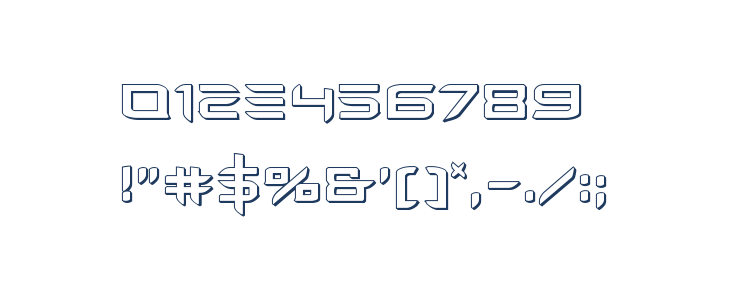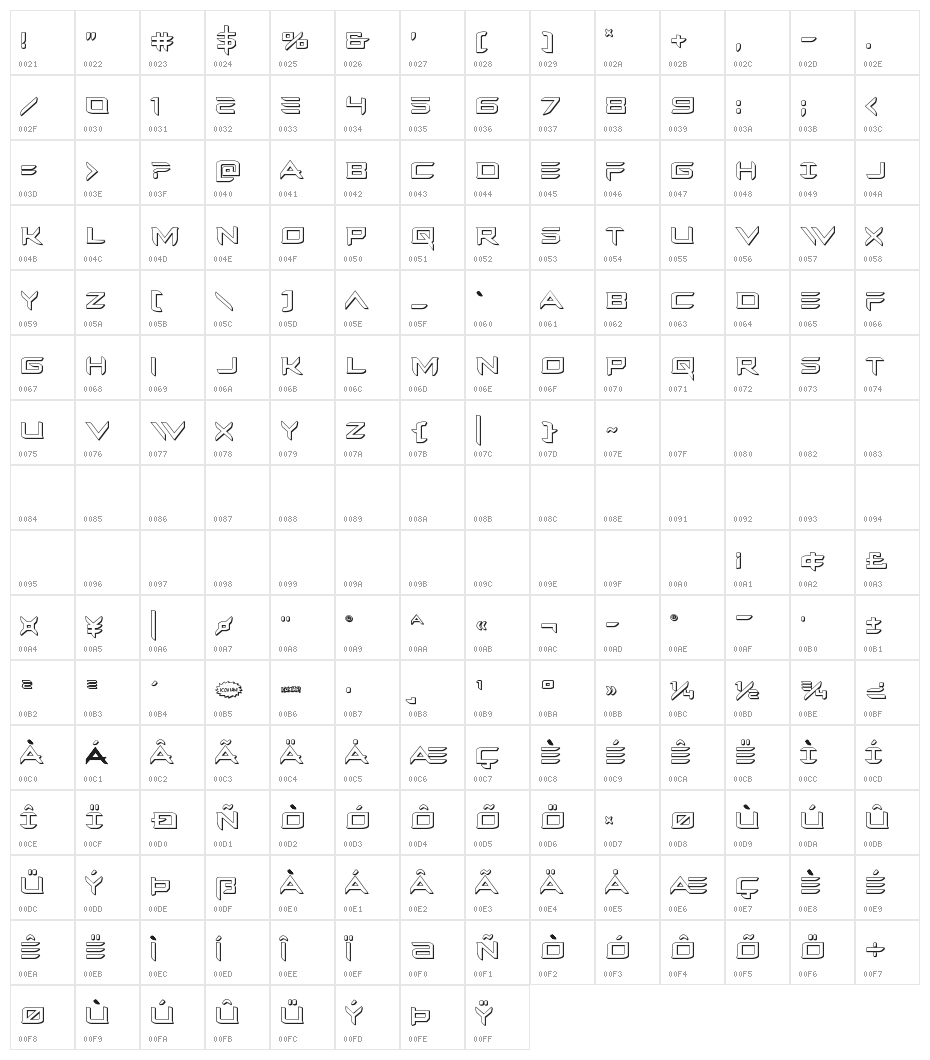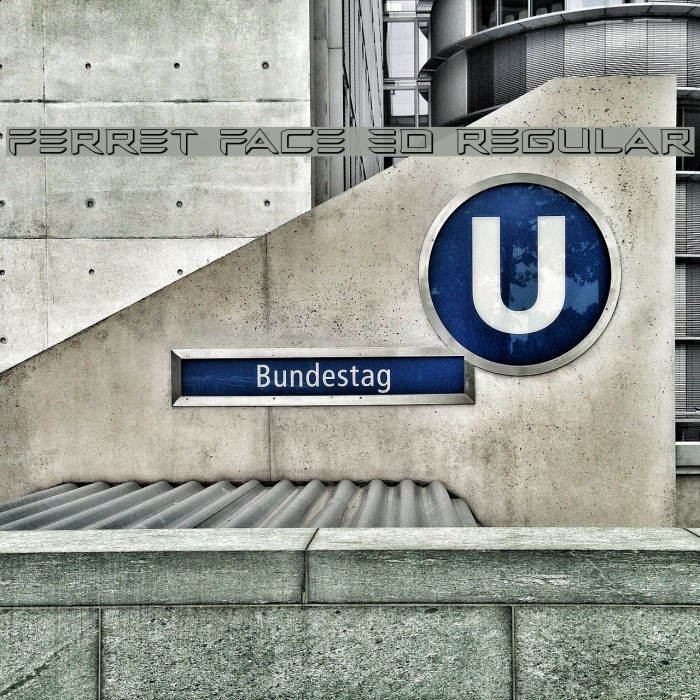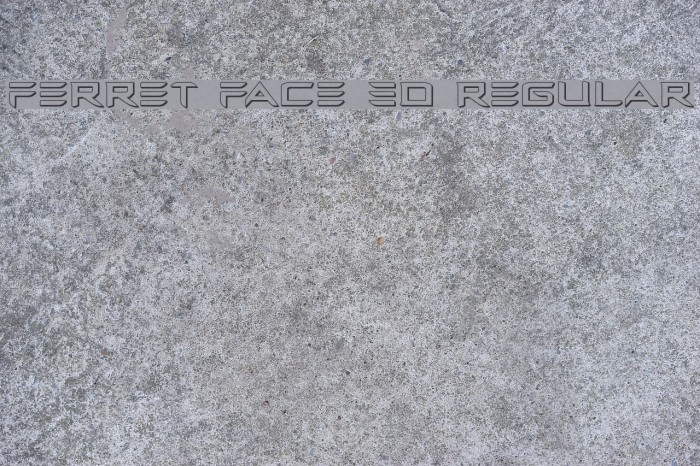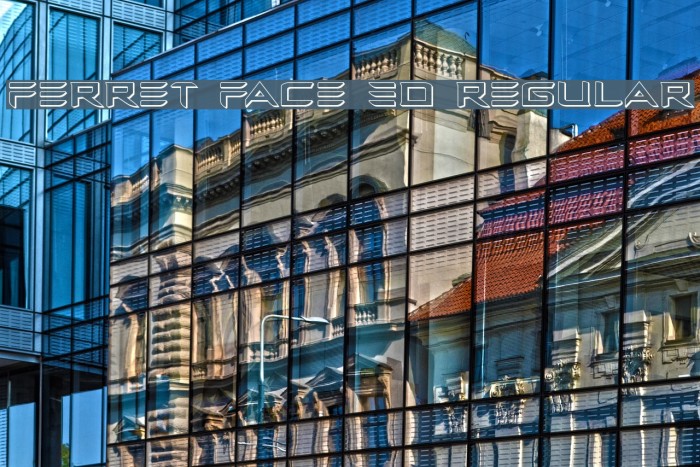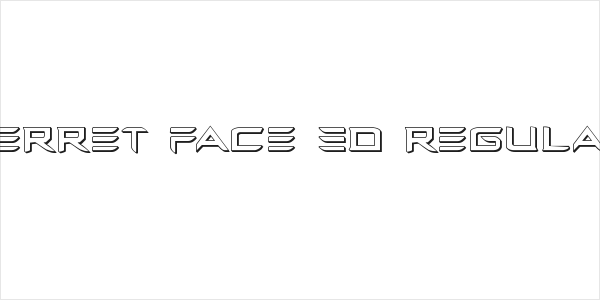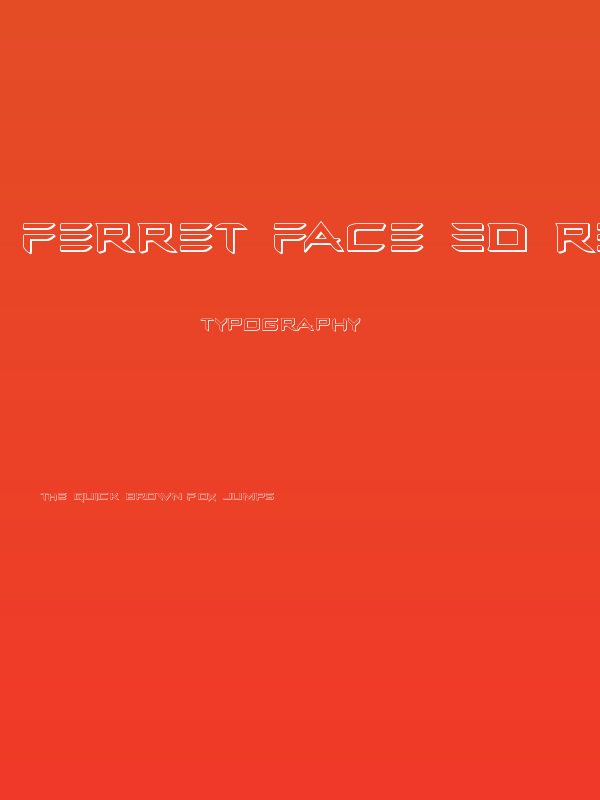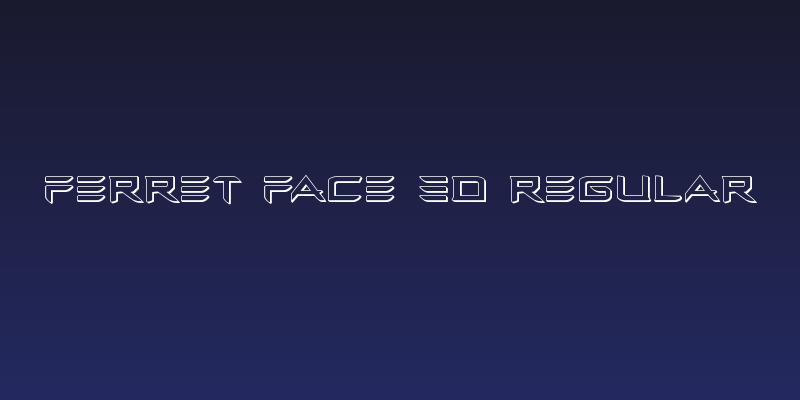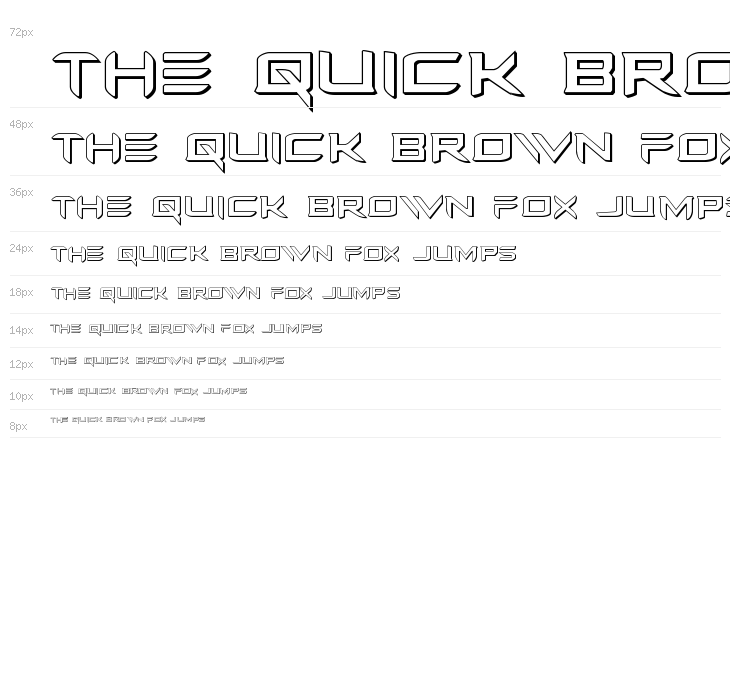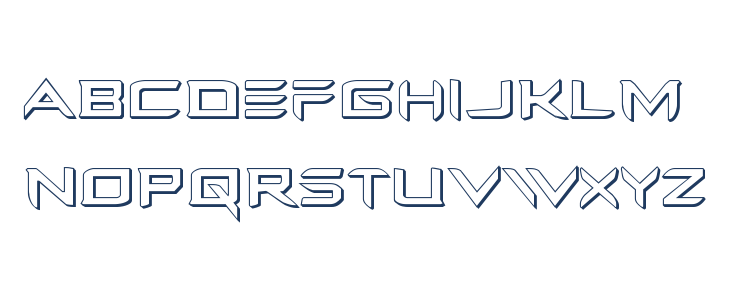
Ferret Face 3D Regular Font
Ferret Face 3D Regular Description
This font features a bold, futuristic design with a 3D effect that gives each character a sense of depth and dimension. The letters are outlined with a consistent thickness, creating a striking visual impact. The geometric shapes and angular lines contribute to a modern and tech-inspired aesthetic. The uppercase and lowercase letters maintain a uniform style, with sharp edges and clean lines. Numbers and special characters are designed to match the overall theme, ensuring cohesion across all elements. The font's unique style makes it suitable for projects that require a contemporary and eye-catching look.